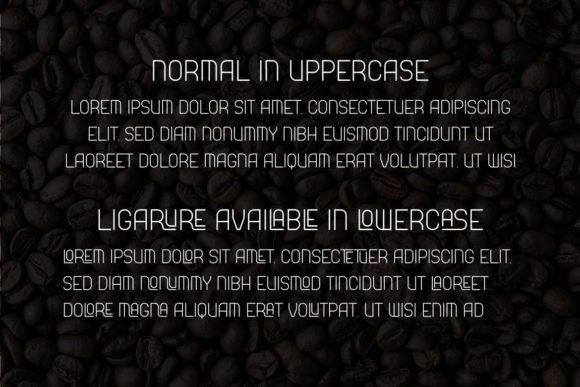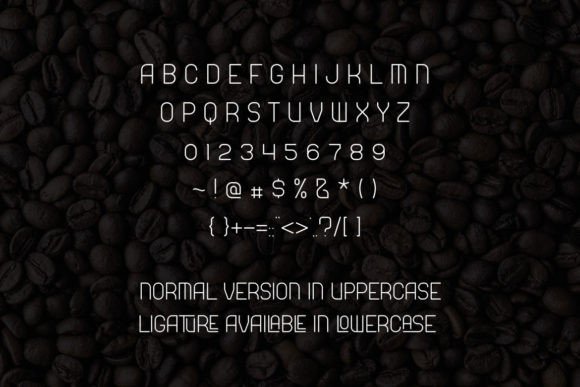
Introduction to Roaster Font
Minimalist, modern, and stylish, that is ROASTER Roaster is suited for any work.
It can be used for title or content The look of the font is clean, modern, and not boring.
Key Features of Roaster Font
Why Choose Roaster Font?
Roaster Font offers exceptional quality and versatility, making it a valuable addition to your design toolkit. Whether you’re creating for personal projects or commercial use, Roaster Font delivers professional results.